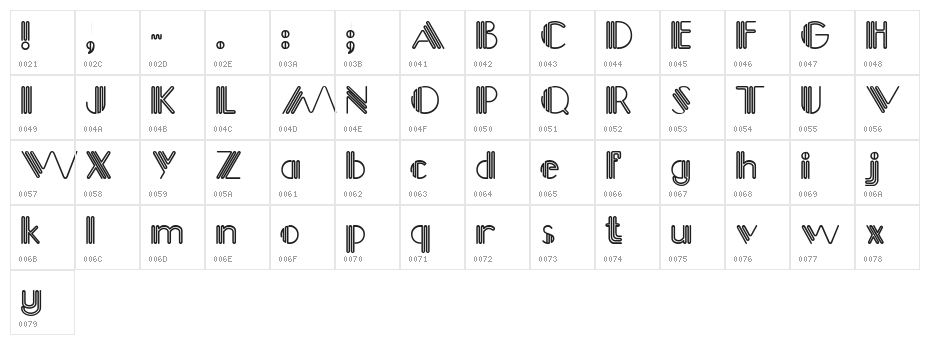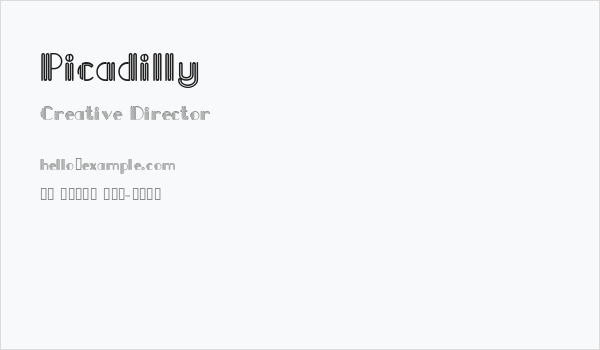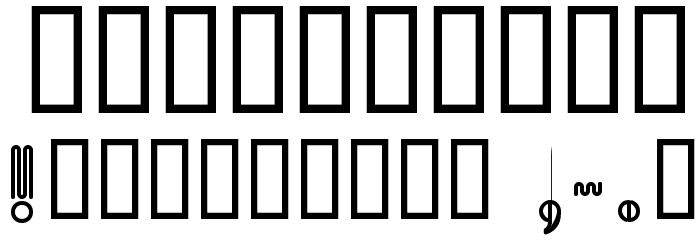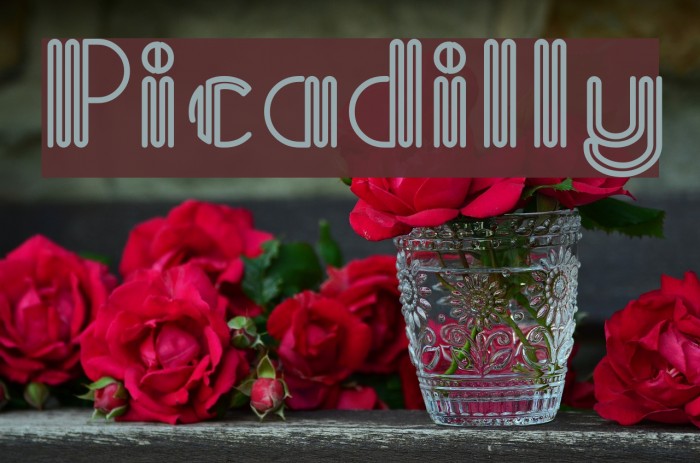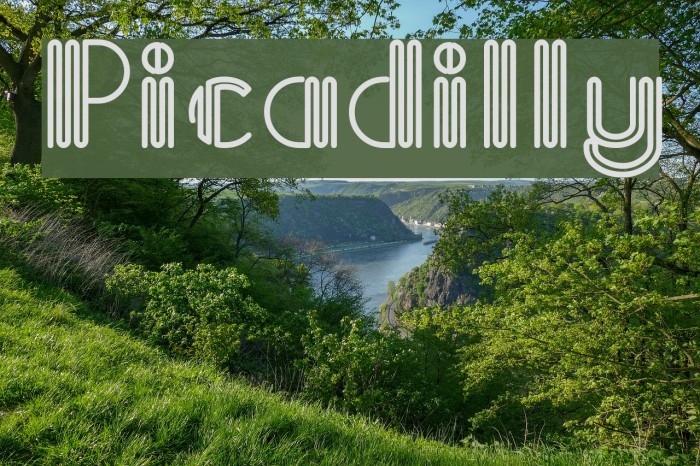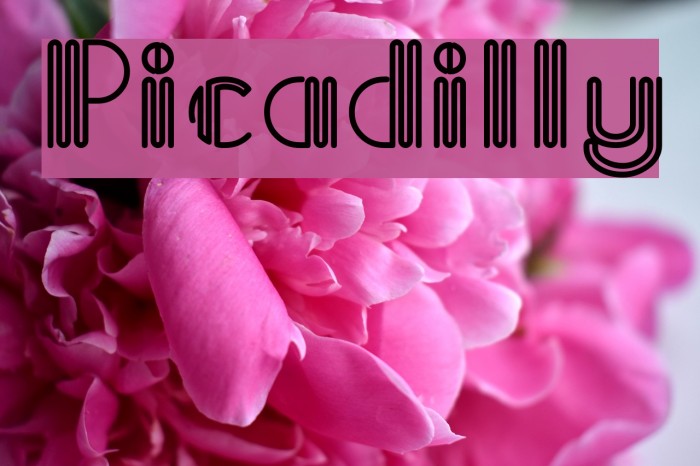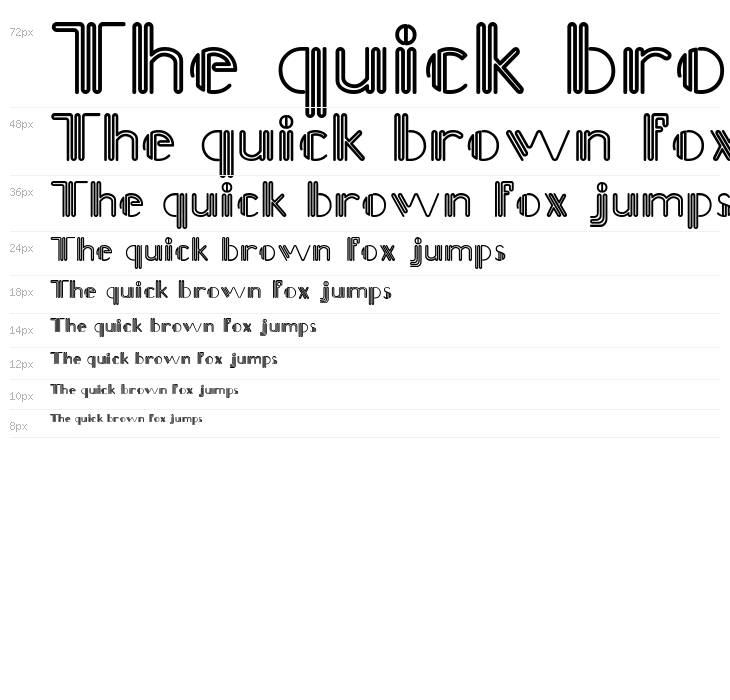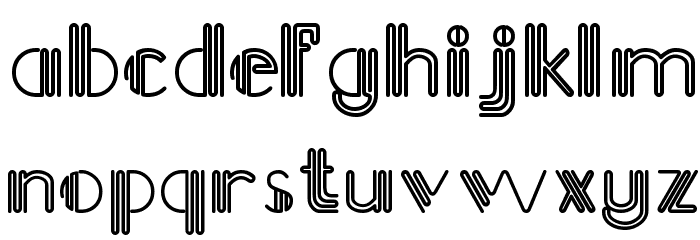
Picadilly Font
Picadilly Description
This font features a unique, decorative style characterized by multiple parallel lines forming each character, giving it a layered and dimensional appearance. The uppercase letters are bold and striking, with a geometric influence that adds a modern touch. The lowercase letters maintain the same multi-line structure, offering a cohesive look throughout. The numerals and special characters follow the same design principles, ensuring consistency. The overall design is eye-catching and suitable for projects that require a distinctive and artistic flair.
| Overall Style | Modern, Decorative |
| Proposed Projects | Ideal for branding, posters, album covers, and any design project that requires a bold, artistic statement. |